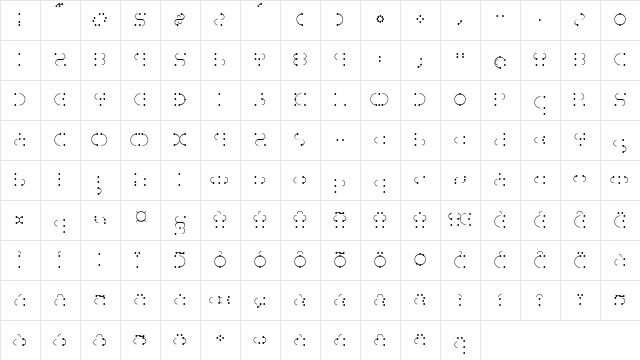
TG Piercin Code
| Foundry | Linotype Library GmbH |
| Designer | Michael Parson |
Design Context for TG Piercin Typeface
TG Piercin brings the precise, column-aligned rhythm of monospaced typography to designs that value technical clarity and systematic order.